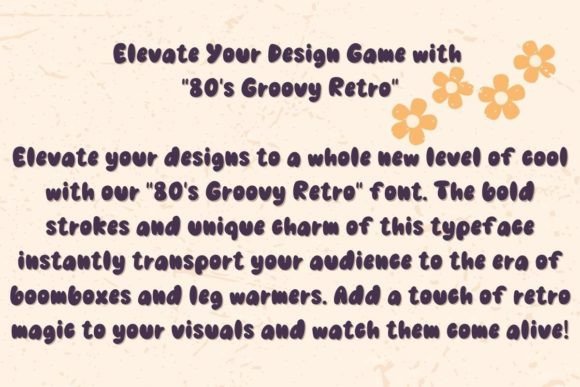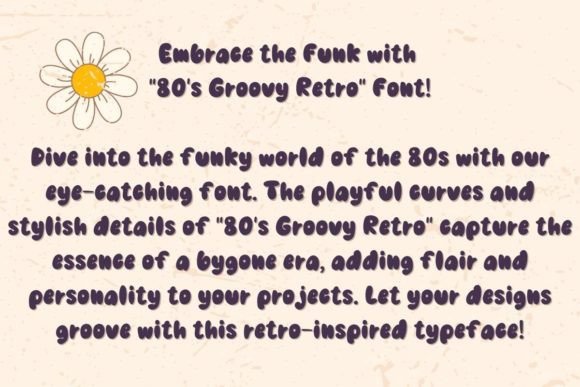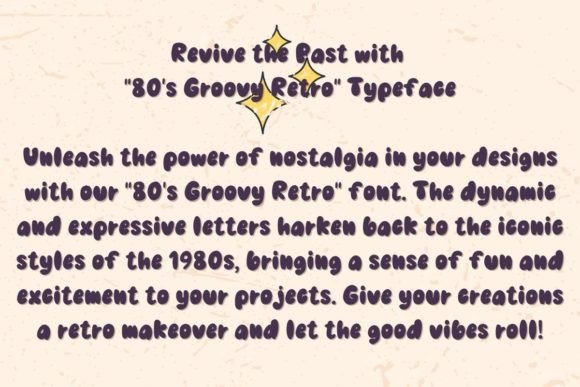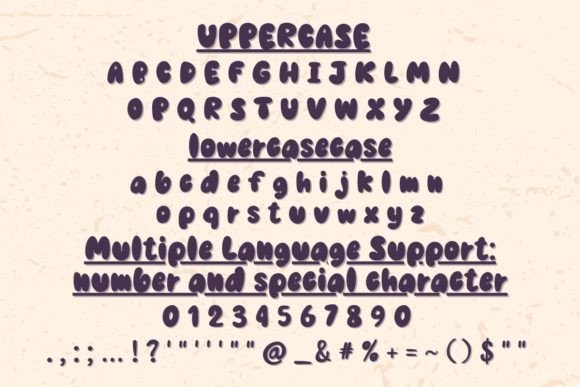
Step Back in Time with 80’s Groovy Retro Font
Are you ready to transport yourself to the vibrant and energetic era of the 1980s? Look no further than our meticulously crafted “80’s Groovy Retro” font! This bold, curvy font brings a touch of nostalgia to your designs, invoking the spirit of neon lights and disco vibes.
The Ultimate Retro Revival
The 1980s was an era of excess, extravagance, and self-expression. It was a time when fashion was bold, music was loud, and art was unapologetic. Our “80’s Groovy Retro” font captures the essence of this iconic decade, allowing you to infuse your designs with a healthy dose of retro flair.
Design Features
Our “80’s Groovy Retro” font boasts a range of design features that make it perfect for a variety of creative projects. Some of the key features include:
- Bold, curvy letters: Our font features bold, curvy letters that are sure to grab attention. The smooth curves and rounded edges evoke the feeling of classic 80s typography.
- Neon-inspired color palette: Our font comes with a range of neon-inspired colors that are sure to add a pop of color to your designs.
- Support for multiple languages: Our font supports multiple languages, making it perfect for designers and crafters around the world.
Whether you’re a designer, crafter, or DIY enthusiast, our “80’s Groovy Retro” font is perfect for a variety of creative projects. Some ideas to get you started include:
- Party invitations: Create eye-catching party invitations that set the tone for a groovy celebration.
- Social media graphics: Add a touch of retro flair to your social media graphics, from Facebook posts to Instagram stories.
- Logo design: Create a bold, eye-catching logo that captures the essence of the 1980s.
- Crafting projects: Add a touch of nostalgia to your crafting projects, from scrapbooking to card making.
Why Choose 80’s Groovy Retro Font?
So why choose our “80’s Groovy Retro” font over other retro-style fonts? Here are just a few reasons:
- Unique design: Our font features a unique design that’s sure to stand out from the crowd.
- High-quality: Our font is meticulously crafted to ensure high-quality results.
Get Ready to Groove!